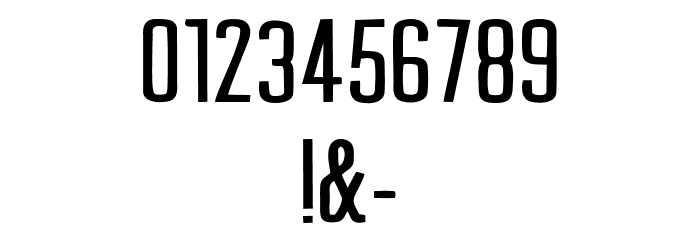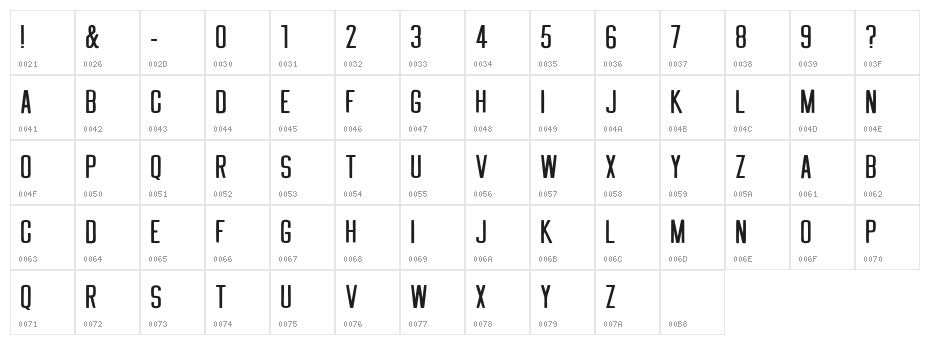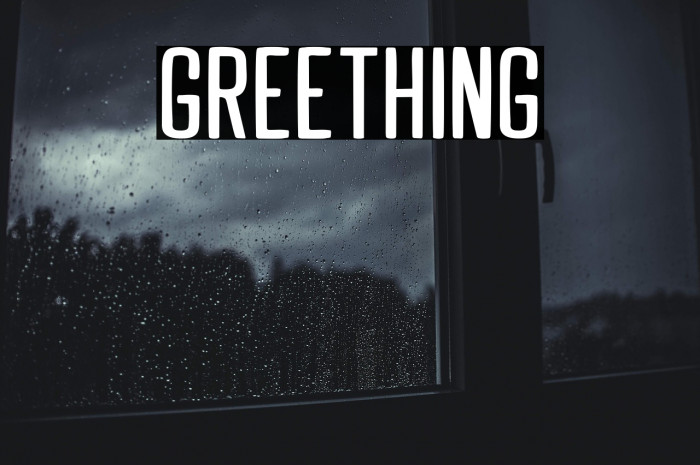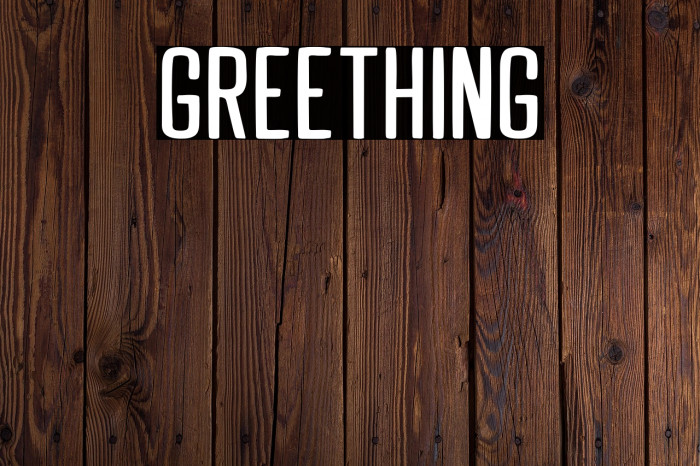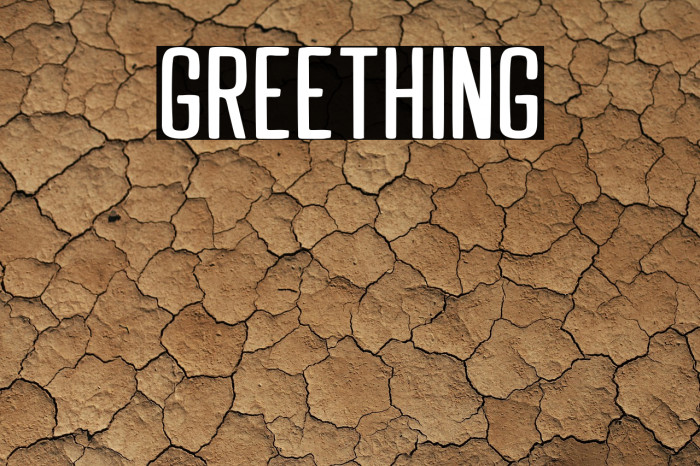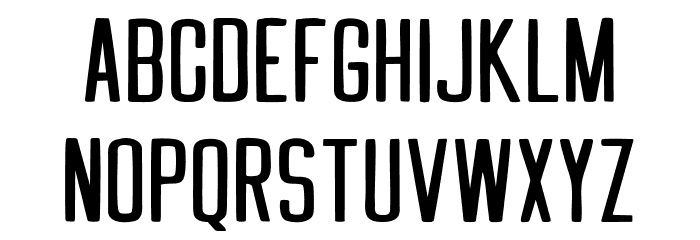
GREETHING Font
GREETHING Description
This font features a bold and modern sans-serif style with clean, straight lines and uniform stroke widths. The characters are tall and slightly condensed, giving a sleek and contemporary appearance. The uppercase and lowercase letters maintain a consistent design, enhancing readability and visual appeal. The numbers are clear and distinct, matching the overall style of the alphabet. Special characters are included, adding versatility for various design needs. The font's simplicity and elegance make it suitable for a wide range of applications, from branding to digital media.